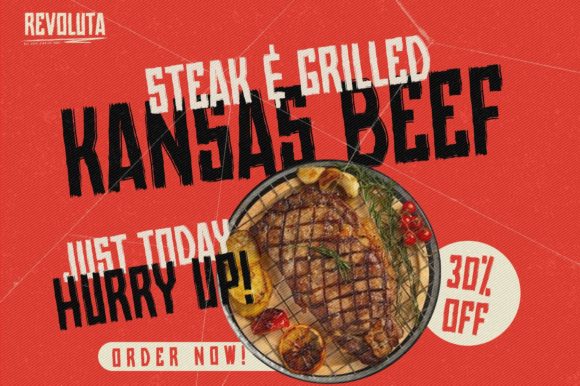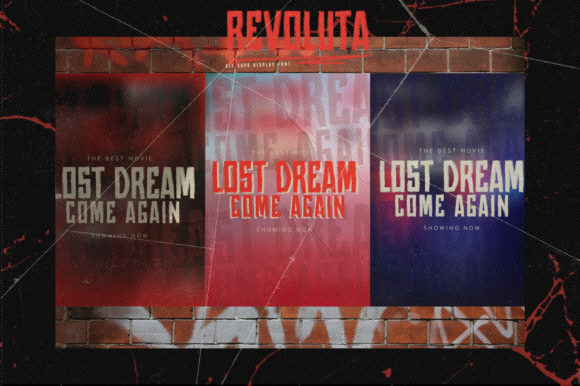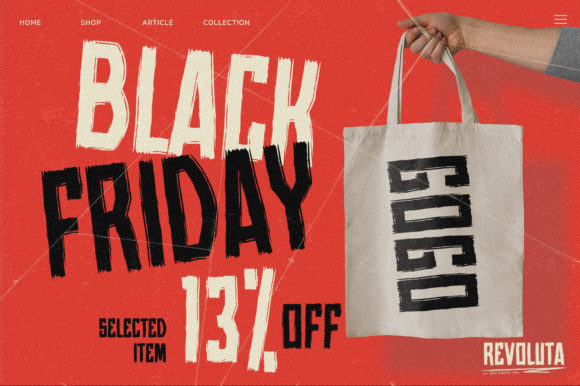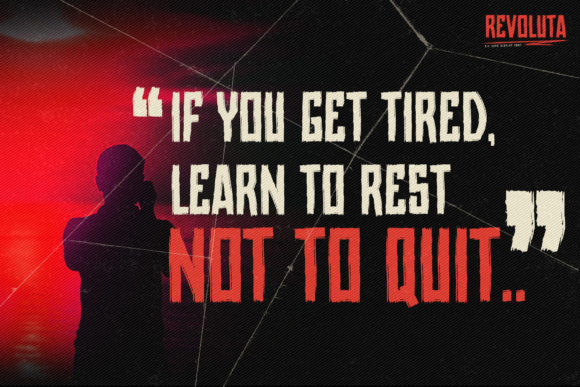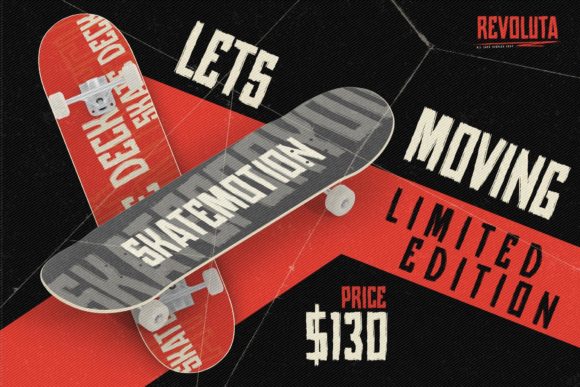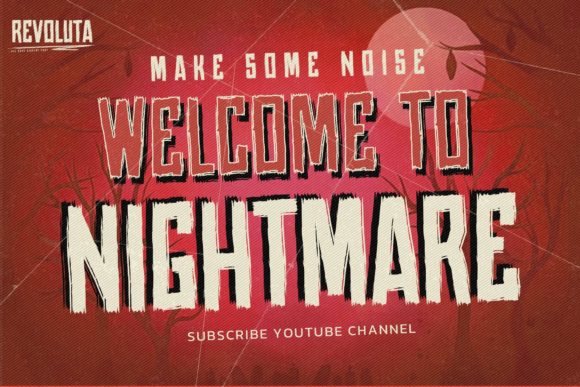
Introduction to Revoluta Font Font
Fonts play a crucial role in design, and the Revoluta Font font is a typeface that brings both character and versatility to any project. Whether you’re working on a branding project, a website, or a print design, the Revoluta Font font offers a unique style that can elevate your work.
Revoluta is a bold, squared lettered and robotic styled display font.
This font reads as strong, confident, and dynamic and can add tons of assertive character to your designs .
The Revoluta Font font is more than just a typeface – it’s a design tool that helps you communicate your message with style and clarity. Its unique character set and versatile design make it suitable for a wide range of applications, from elegant invitations to bold headlines.
With its carefully crafted letterforms and balanced proportions, the Revoluta Font font ensures readability and visual appeal across all mediums.
The Revoluta Font font stands out with its unique design, exceptional readability, and versatility across various design applications.